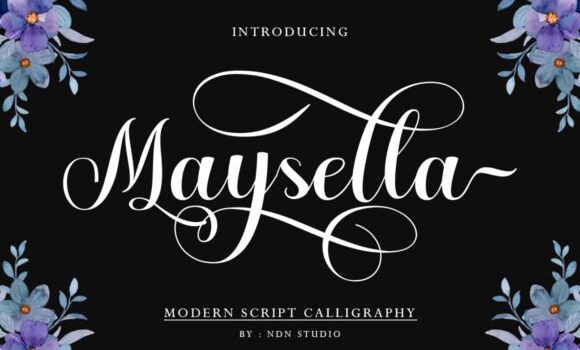
maysella
Maysella Font – Free Download Introduction to Maysella Font Maysella is a delicate and fashionable script font. 📸 Preview Gallery 6 images 📌 Product Name Maysella Font 👤 Author Ndn Studio 📂 Category Explore ⬇️ Download Maysella Font FREE Free